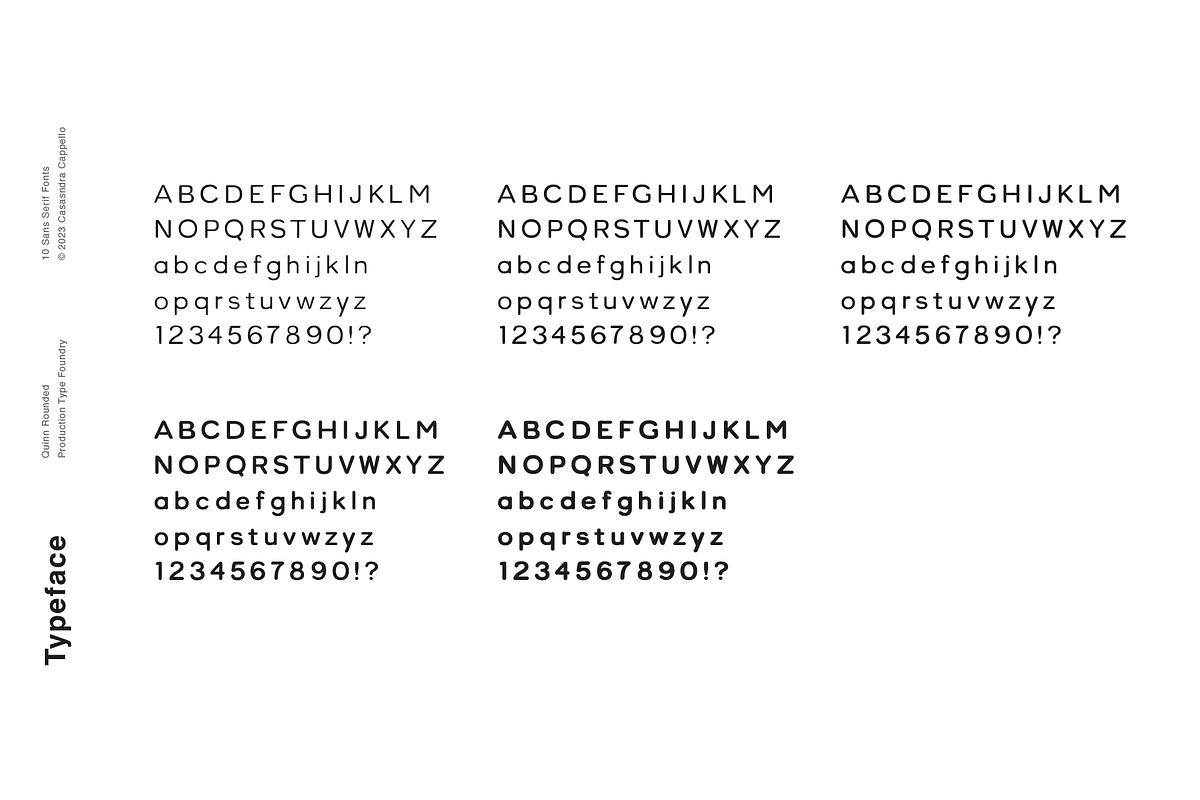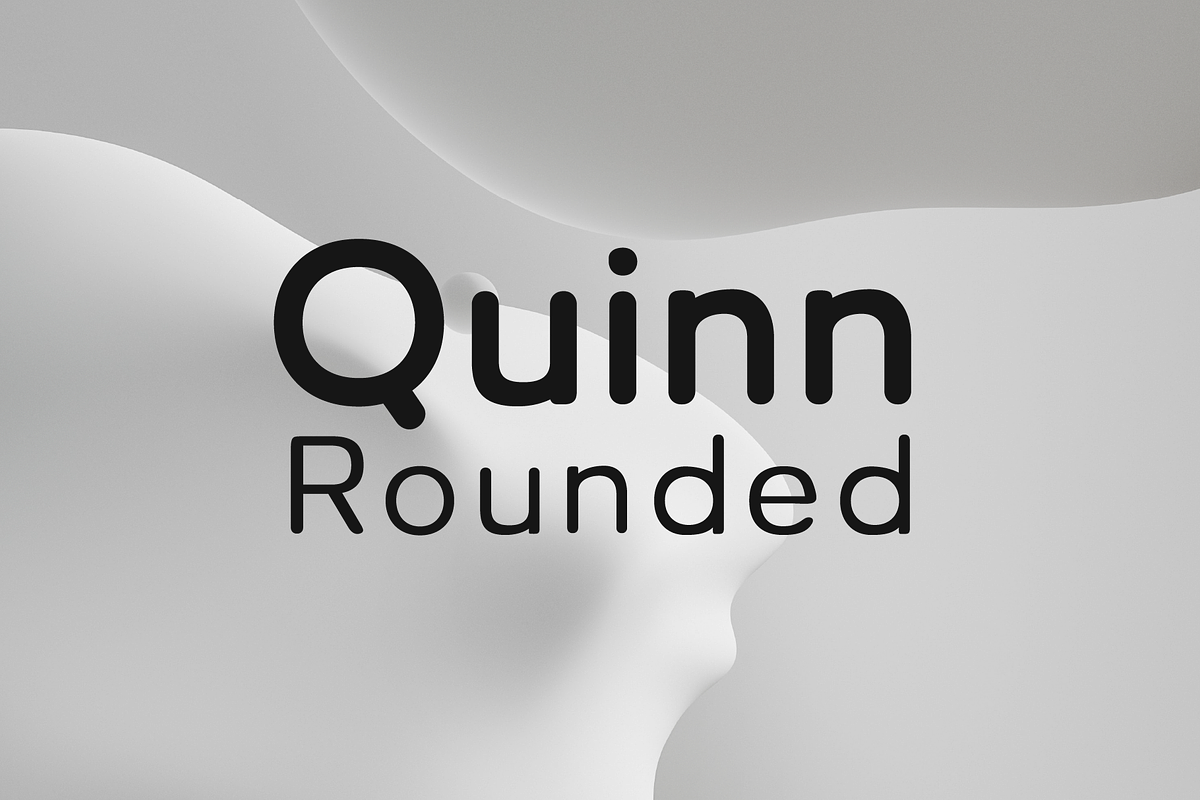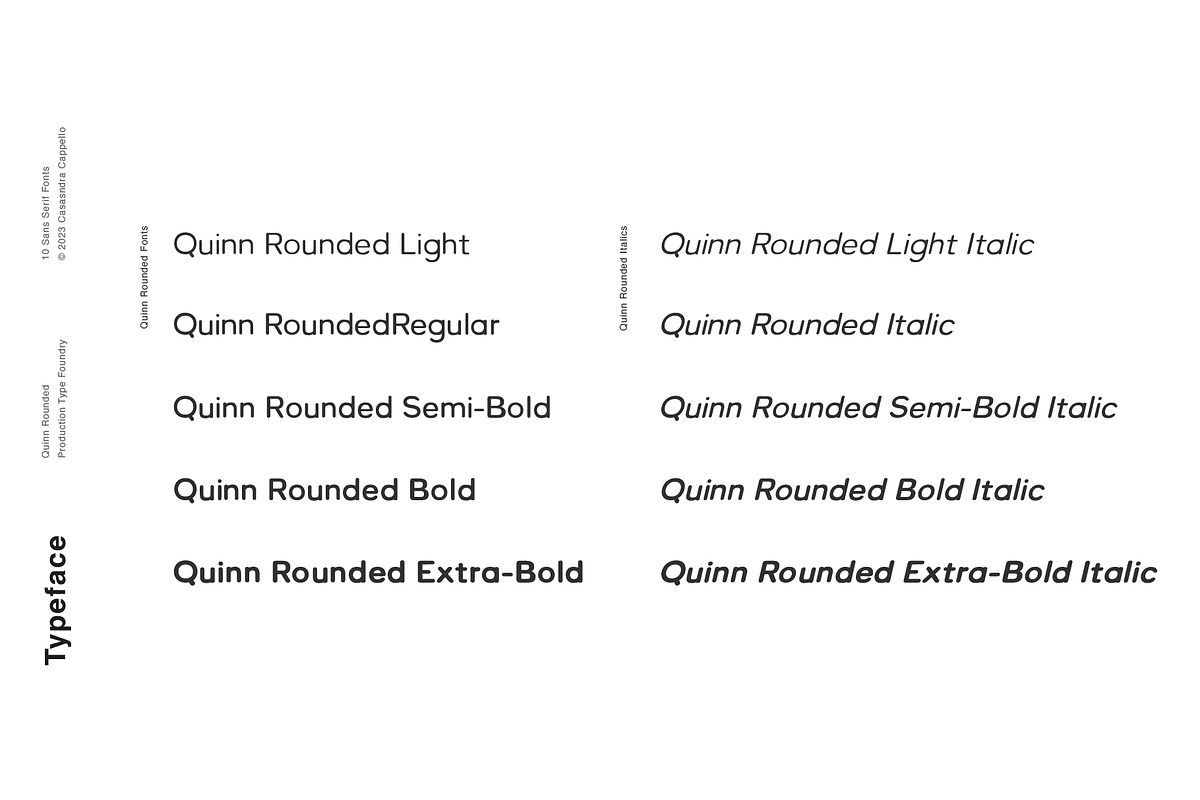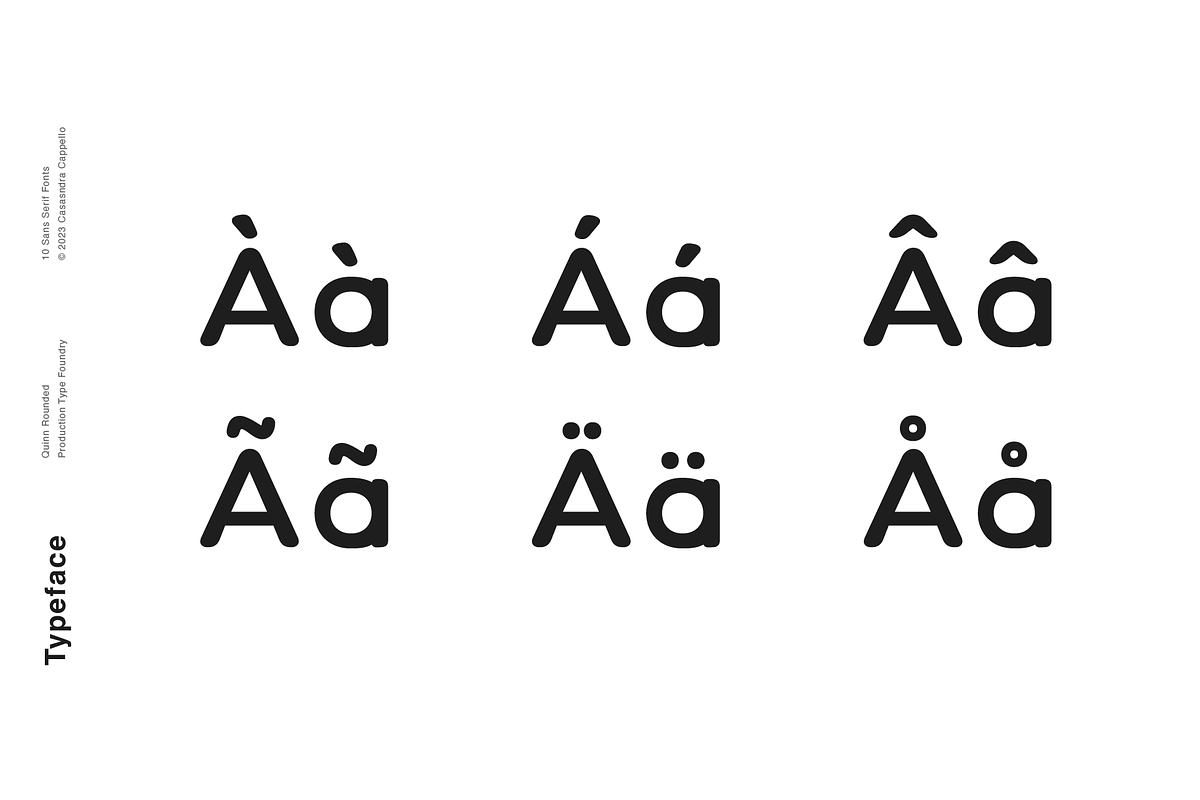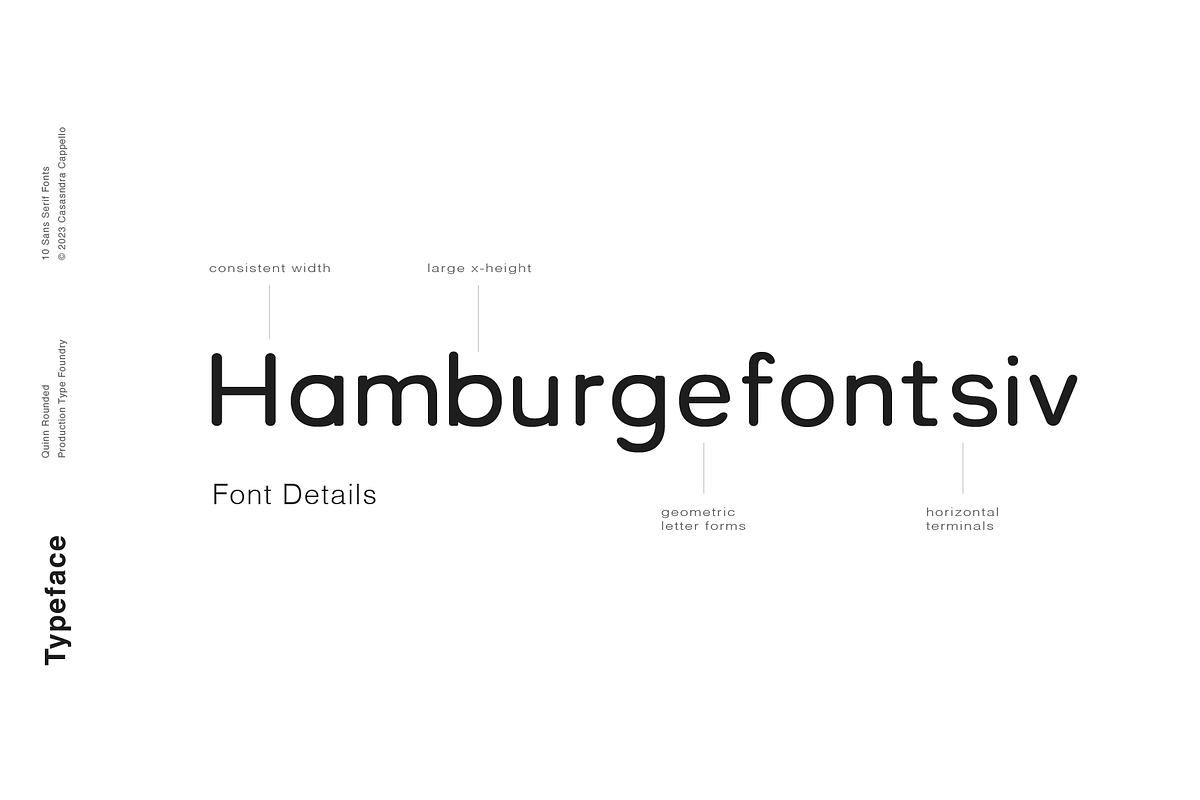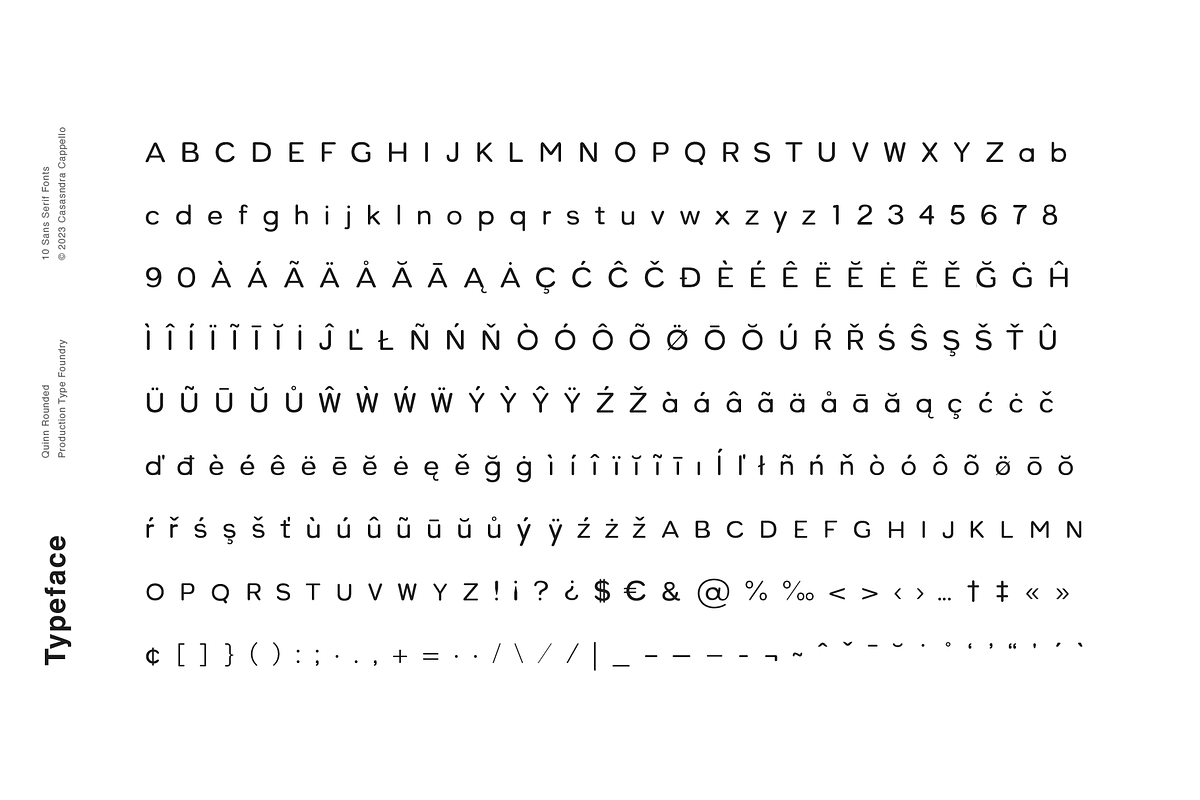
Quinn Rounded - A minimal sans serif
Quinn Rounded is a modern, minimal, rounded, and bubbly sans serif typeface. It has a cute and charming personality and can be used for both headers and body copy. This font family includes all Latin characters (including accents), numbers, special characters, and punctuation.